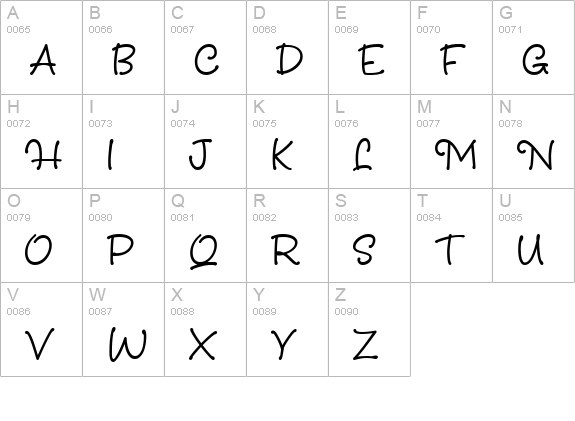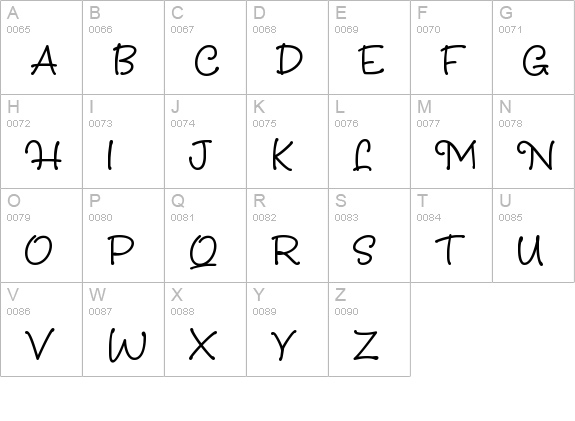
Christine Font Details
Christine font is a beautifully designed typeface that exudes elegance and sophistication. With its graceful curves and stylish flourishes, this font is perfect for adding a touch of class to any design project. The versatility of Christine font makes it ideal for a wide range of applications, from wedding invitations to branding materials. Best of all, Christine font is free to download at FontsMarket.com, allowing you to access this stunning typeface without any cost. Whether you're a designer looking to elevate your work with a premium font or simply someone who appreciates high-quality typography, Christine font is sure to impress with its timeless appeal and effortless charm. Download Christine font today and bring a touch of luxury to your next creative endeavor.